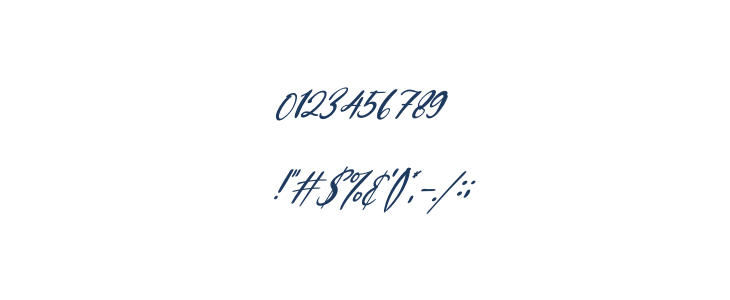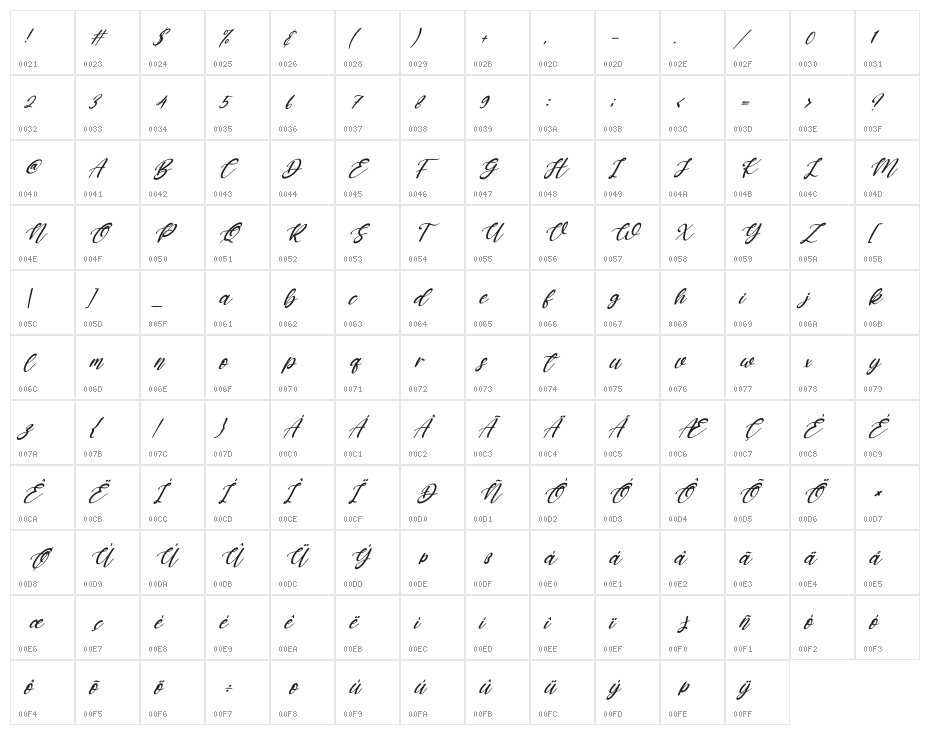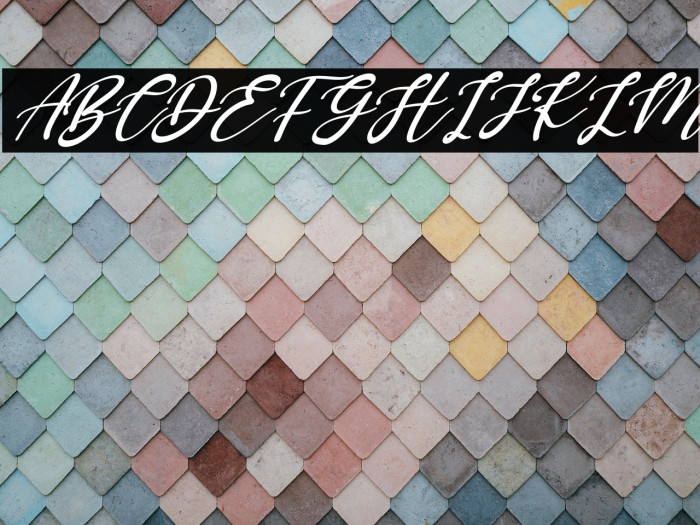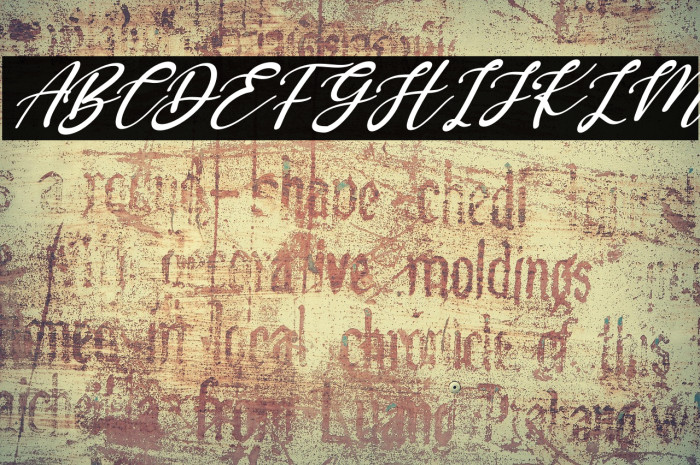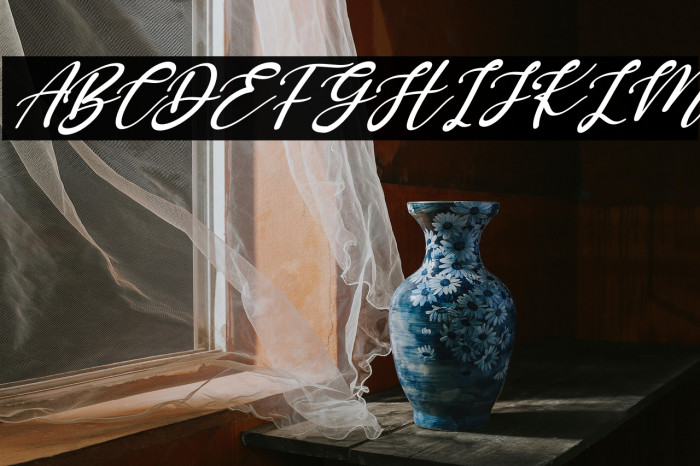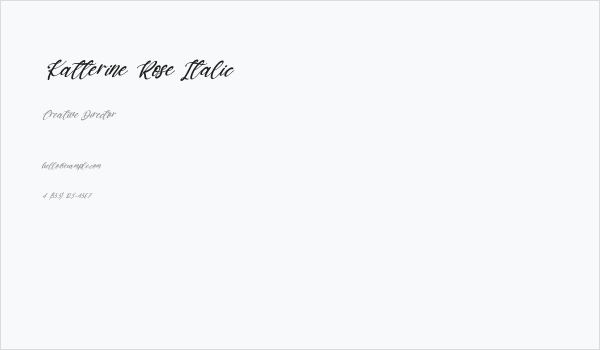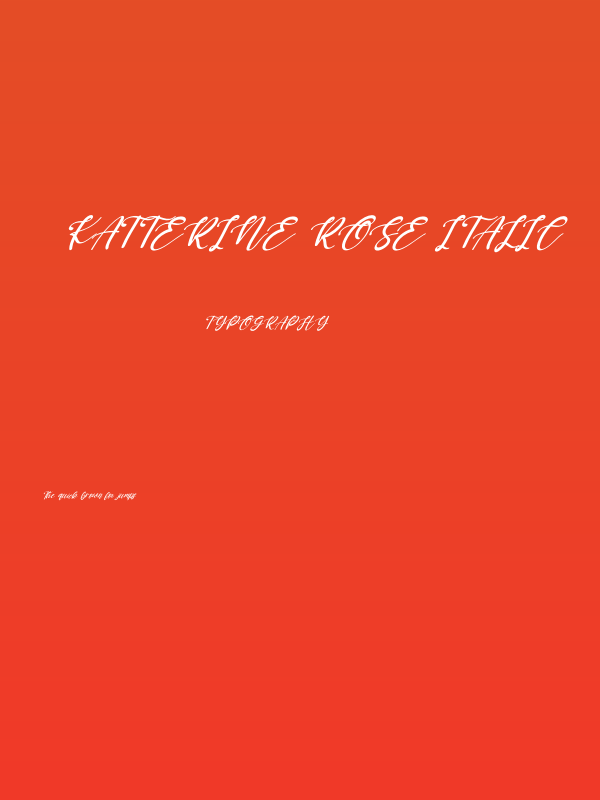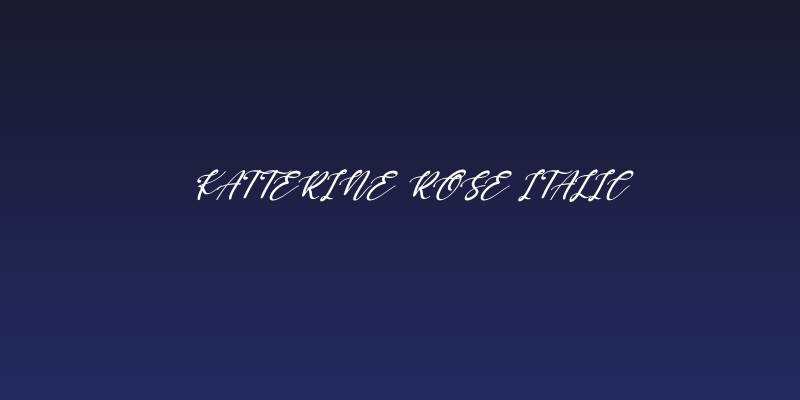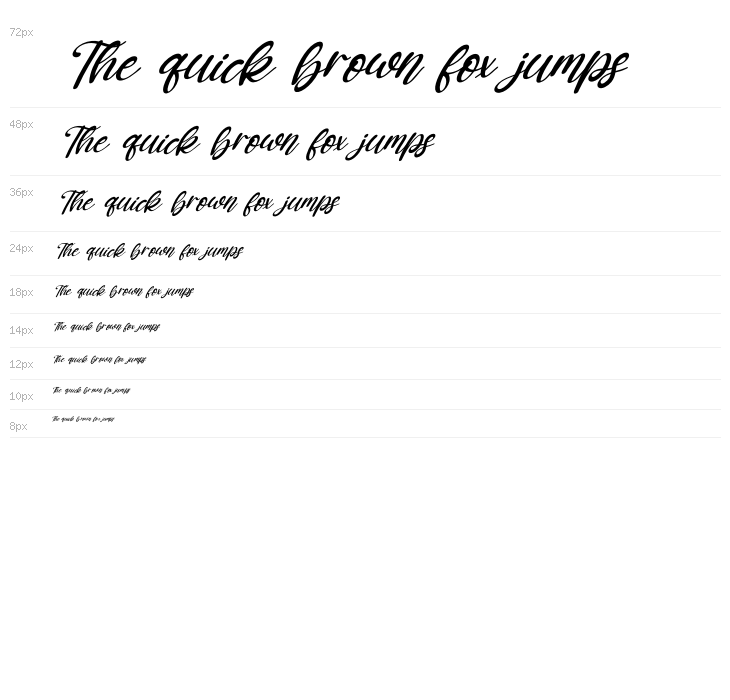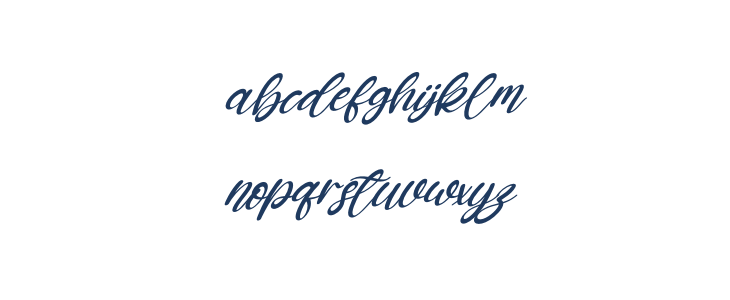
Katterine Rose Italic Font
Katterine Rose Italic Description
This font exudes elegance and fluidity, characterized by its cursive, flowing script style. The letters are interconnected, creating a seamless and graceful appearance. The strokes are smooth and consistent, with a slight slant that adds to its sophisticated look. The uppercase letters are ornate and decorative, while the lowercase letters maintain a more subtle yet stylish form. Numbers and special characters are designed to match the overall aesthetic, ensuring a cohesive look across all text. This font is ideal for projects that require a touch of elegance and refinement.
| Overall Style | Elegant, Decorative |
| Proposed Projects | Wedding invitations, elegant branding, greeting cards, and luxury product packaging. |